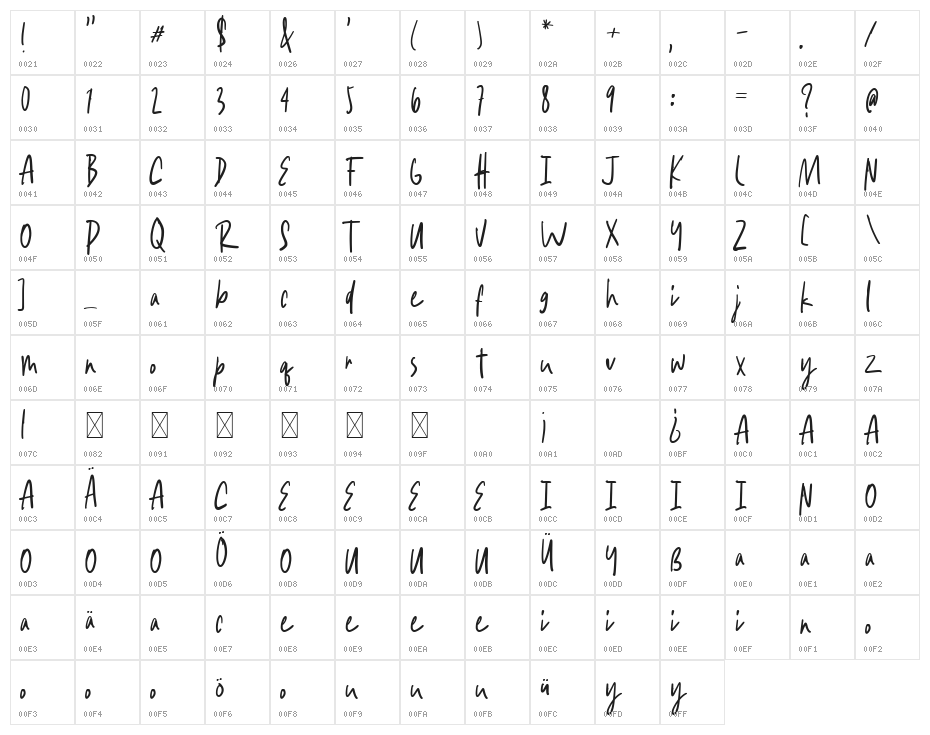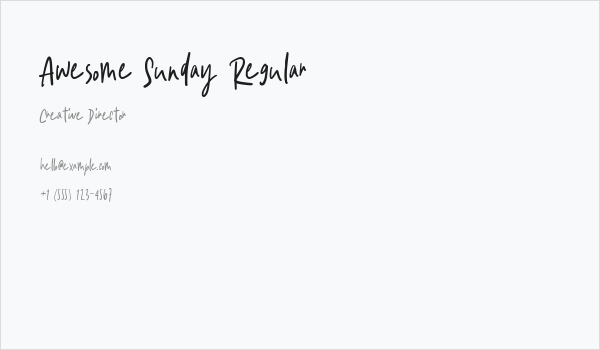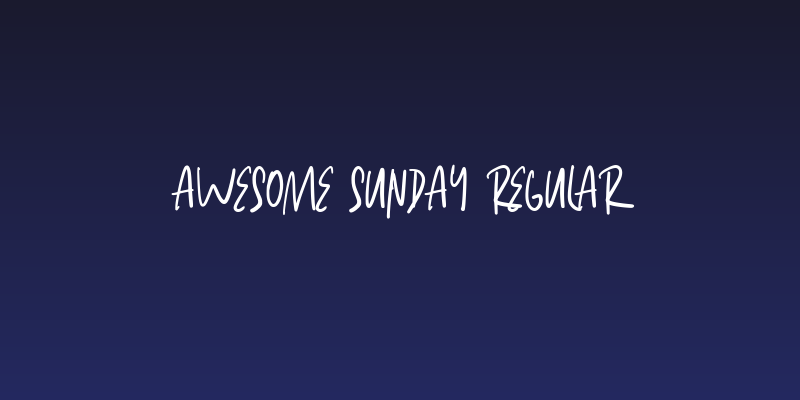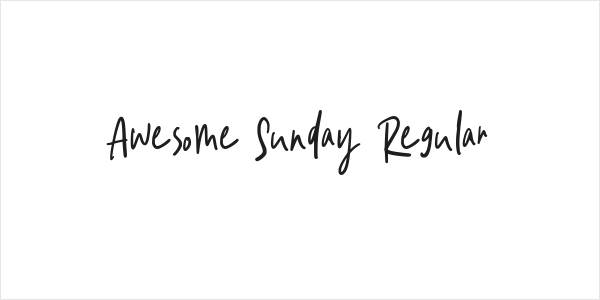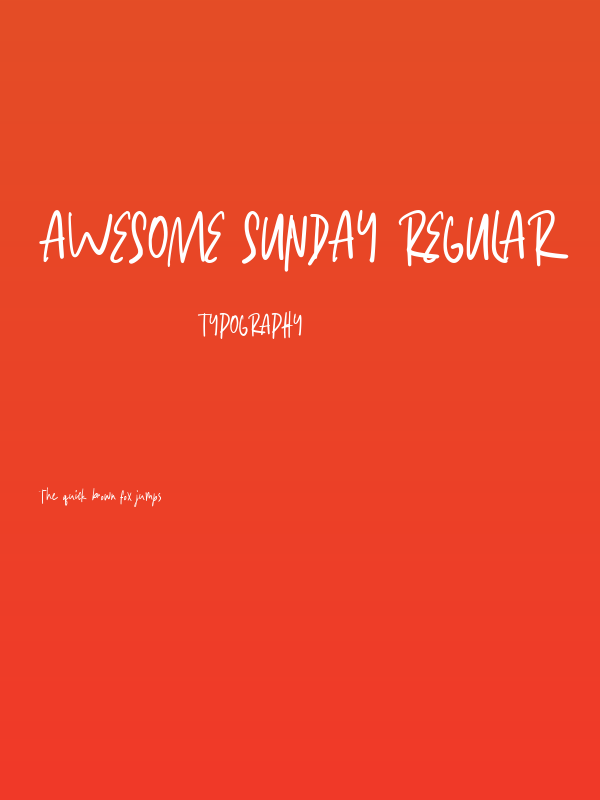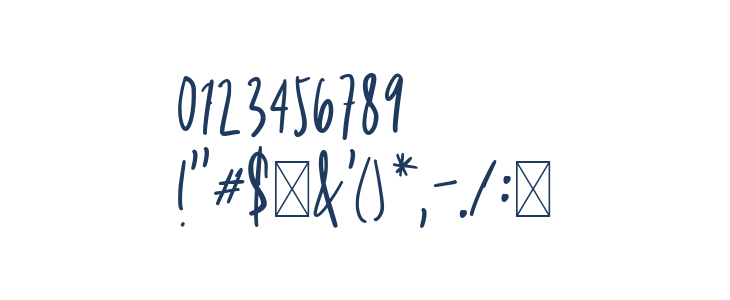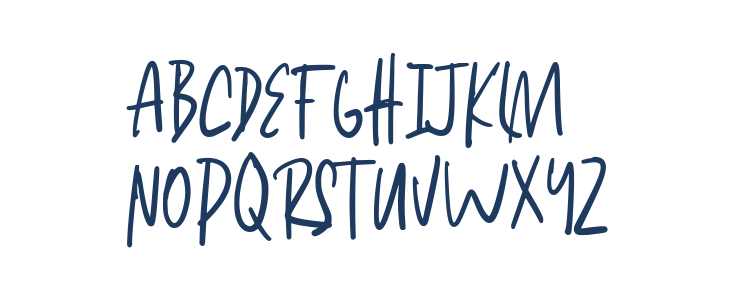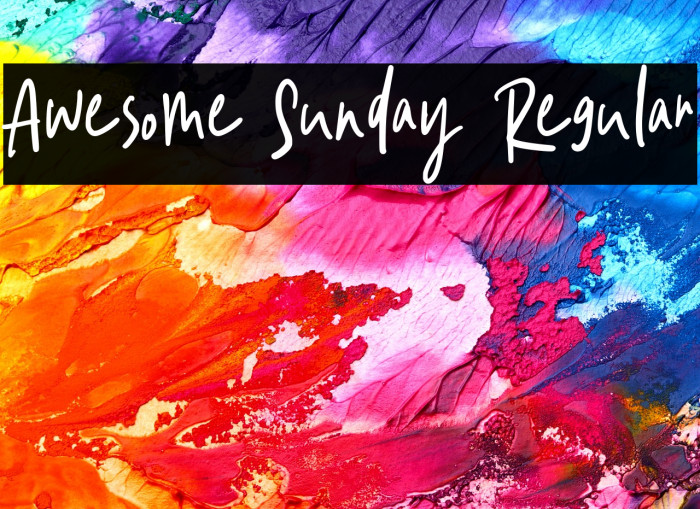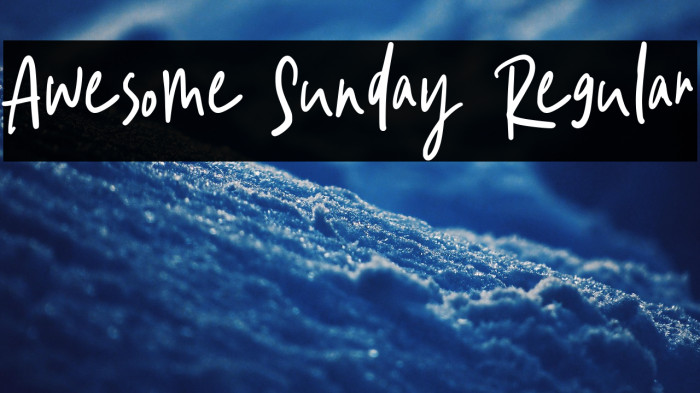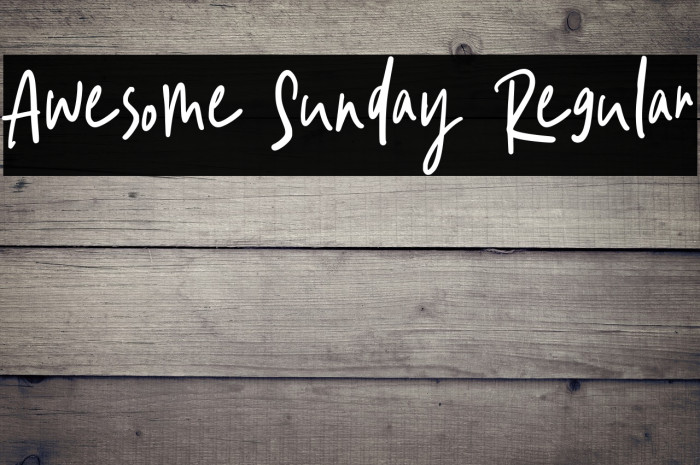
Awesome Sunday Regular Font
A casual, handwritten script font with a playful and informal style, featuring slightly irregular strokes and a friendly appearance.
| Overall Style | Casual, Playful, Informal |
| Use Case | Headlines, Body text, Logos, Personal projects |